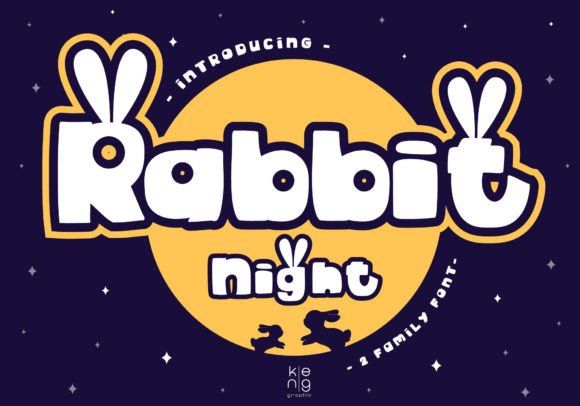
Introducing the Rabbit Night Font: Unleash Your Creative Flair and Capture Hearts!
Journey into the world of Rabbit Night, a captivating display font that ignites imagination and transforms words into works of art. This playful and energetic font, meticulously crafted by Keng Graphic, is a symphony of creativity, designed to leave an indelible mark on your designs.
With its distinctive cartoonish charm, Rabbit Night dances across the screen, demanding attention and captivating hearts. Its playful curves and bold strokes evoke a sense of joy and whimsy, making it the perfect choice for projects that demand a touch of youthful exuberance and courage.
Unleash your inner artist and let Rabbit Night be your muse. Whether you're creating comic book masterpieces, captivating online games, or eye-catching social media posts, this font will infuse your work with vibrancy and personality. Its versatility knows no bounds, extending to cards, love shirts, posters, and movie titles, seamlessly adapting to your creative vision.
Immerse yourself in the world of Rabbit Night and discover a font that embodies creativity, courage, and boundless imagination. It's the perfect companion for those who dare to dream big and leave their mark on the world. Embrace the power of Rabbit Night today and let your designs shine brighter than ever before!